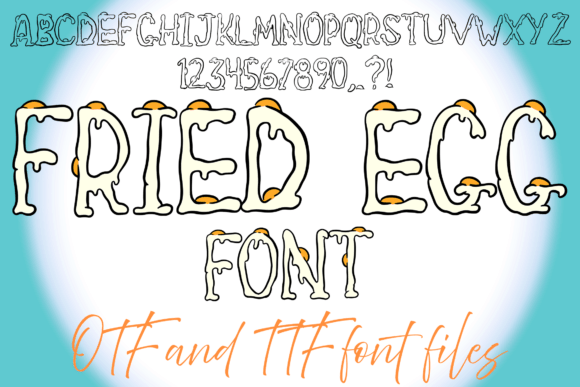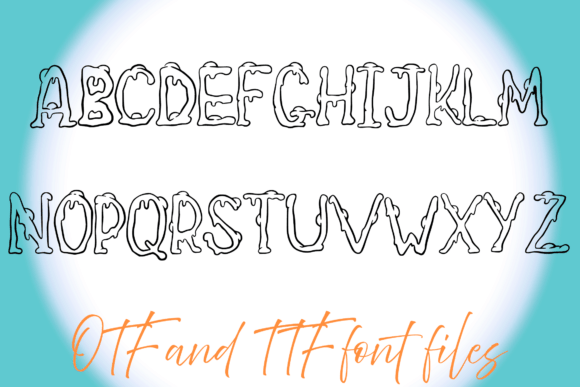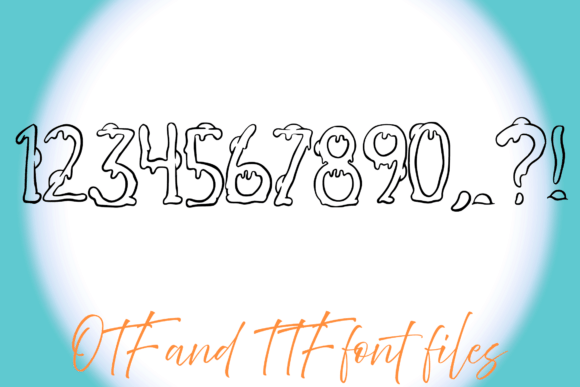
Fried Egg Font
About the Fried Egg Font
Meet Fried Egg Font, a stunning font that brings a touch of elegance and professionalism to any design. Fried Egg Font is a quirky and playful display typeface that looks just like it sounds—gooey, melty, and delicious! With sunny-side-up egg illustrations baked into each character, this font is a perfect match for food branding, restaurant menus, children’s projects, or any design that needs a big bite of humor and creativity.
Fried Egg Font’s playful energy makes it ideal for headlines, short slogans, and eye-catching logos. It excels in branding for food-related businesses, children’s products, and projects requiring a lighthearted, approachable aesthetic. However, its unique design is unsuitable for body text or UI elements; the illustrative nature of the characters hinders readability in longer passages.
Pairing Fried Egg Font with a clean sans-serif like Open Sans for body copy creates a balanced contrast, allowing the display font to shine while maintaining readability. Alternatively, a classic serif like Garamond provides a sophisticated counterpoint, highlighting the playful nature of Fried Egg Font.
The overall personality is undeniably cheerful and informal. Its bold, quirky style is best suited for brands and projects aiming for a fun, memorable, and slightly unconventional image.
Fried Egg Font Usage Examples
Fried Egg Font Example